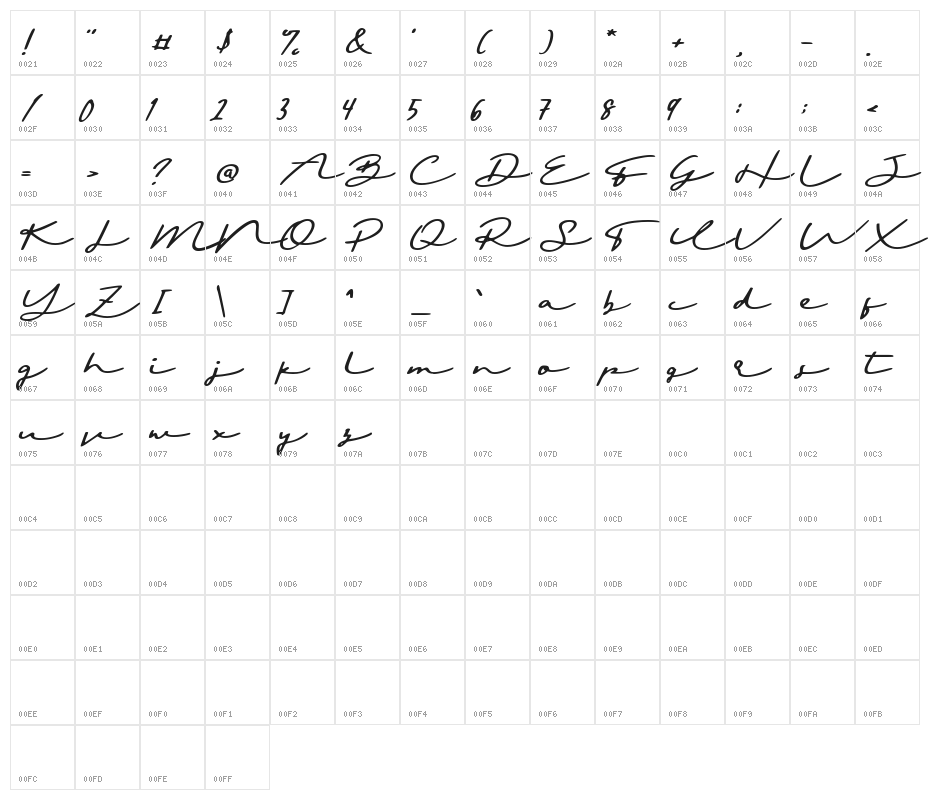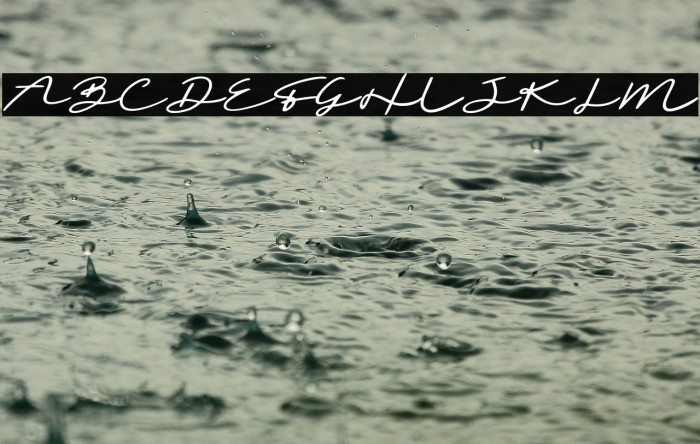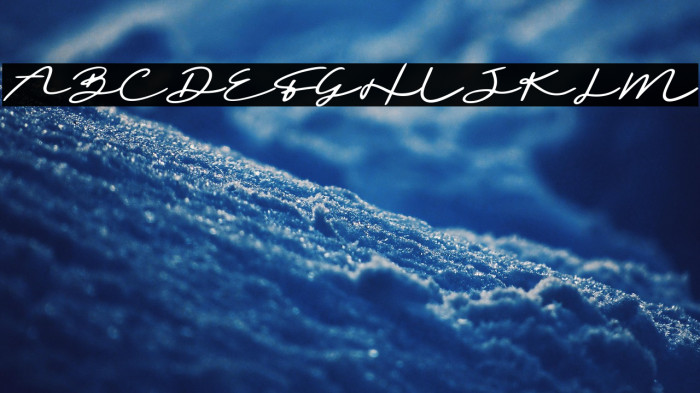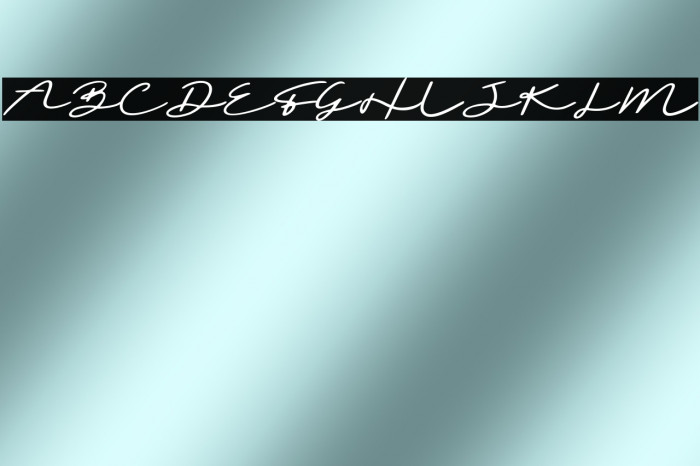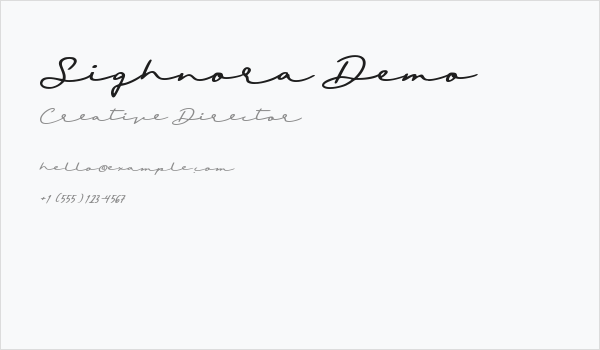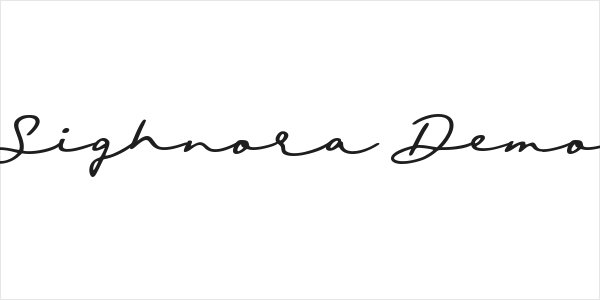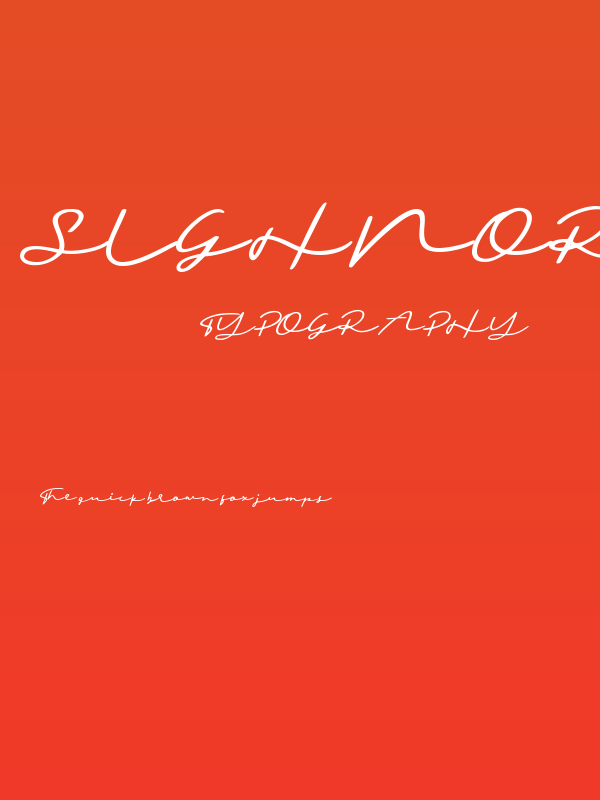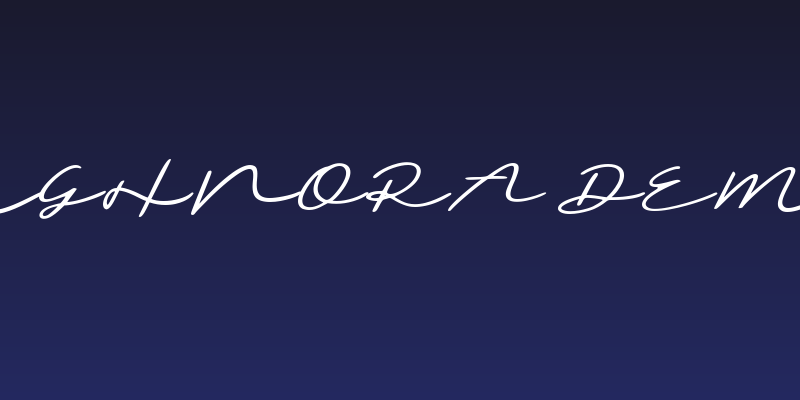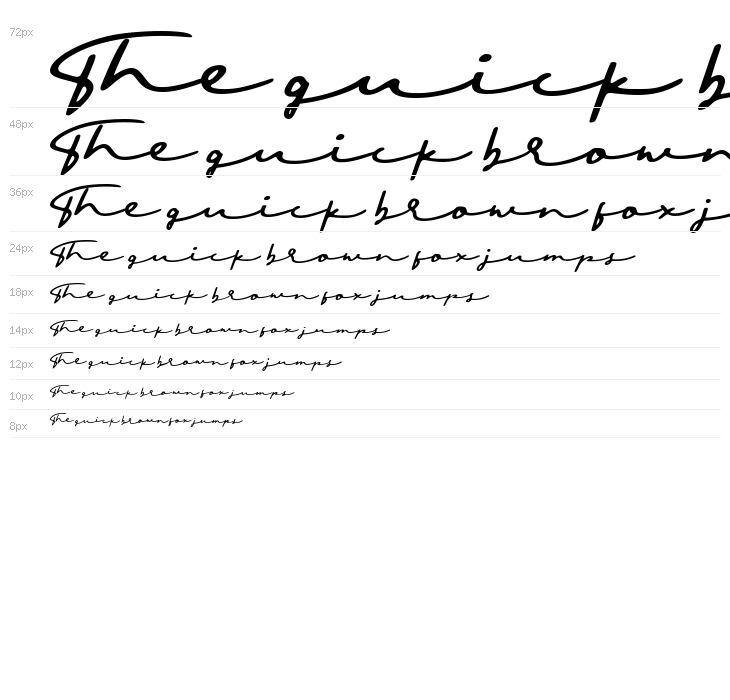
Sighnora Demo Font
This font features a modern and elegant design with a smooth, flowing script style. The characters are connected in a cursive manner, giving it a handwritten appearance. The strokes are consistent and fluid, with a slight slant that adds to its graceful look. The uppercase letters are slightly larger and more ornate, while the lowercase letters maintain a uniform height, enhancing readability. The numbers and special characters are designed to match the overall aesthetic, ensuring a cohesive look across all text elements.
Use CaseLogos, Invitations, Branding
Proposed ProjectsIdeal for wedding invitations, greeting cards, branding, and elegant logo designs.